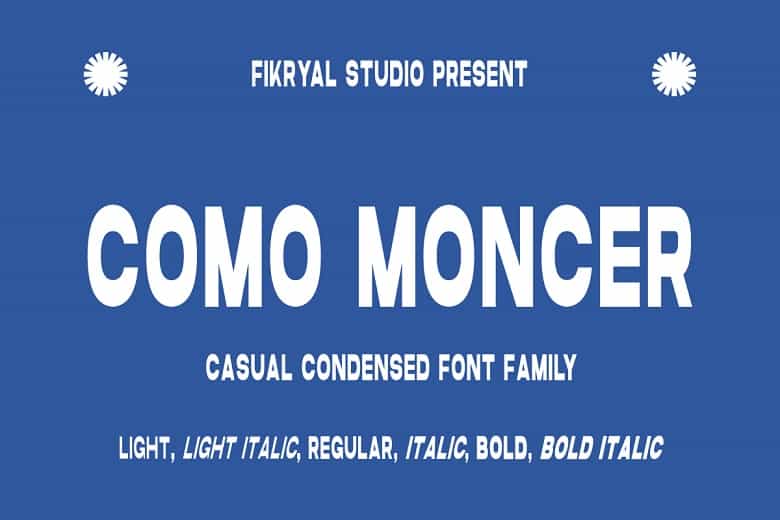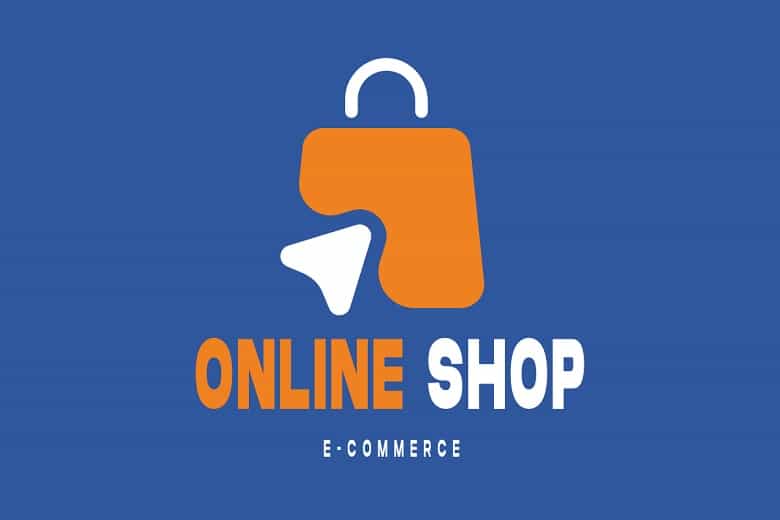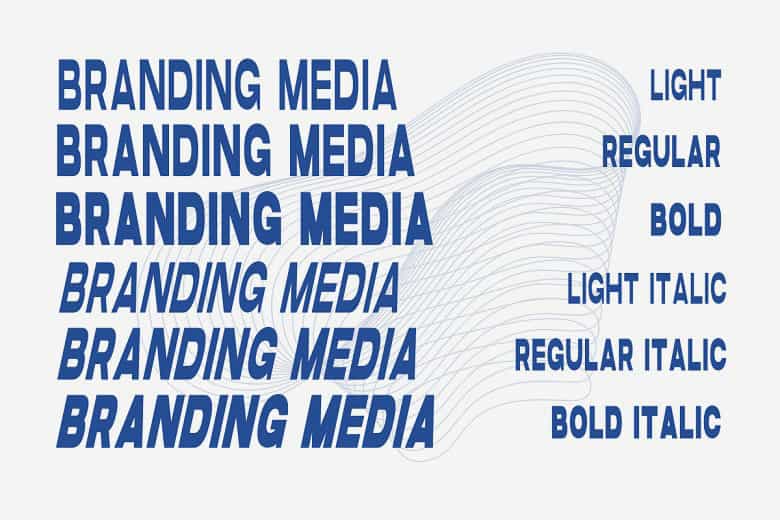
Como Moncer is a casual sans serif font with six types: Light, Light Italic, Regular, Italic, Bold, and Bold Italic Typography style. This font is very simple and elegant; it also has options that can be used in a variety of designs. High readability and a modern approach to writing are used in the text.